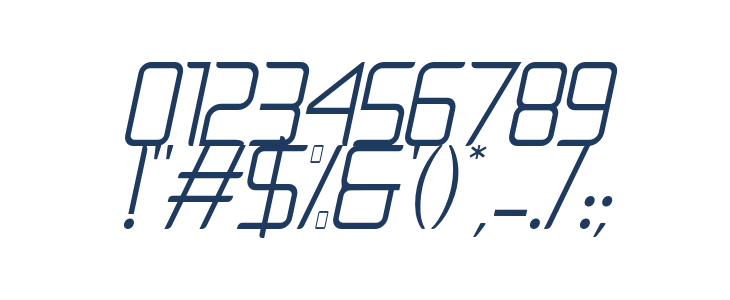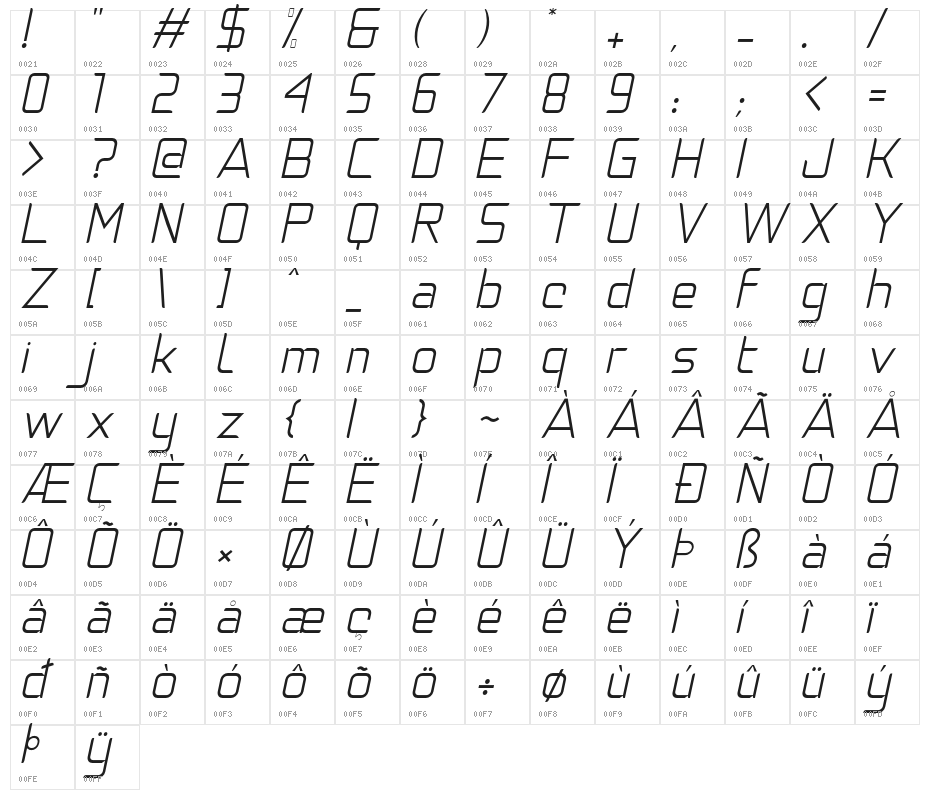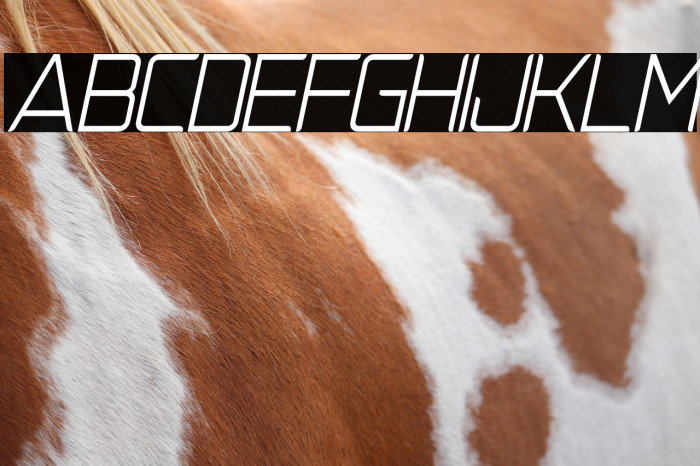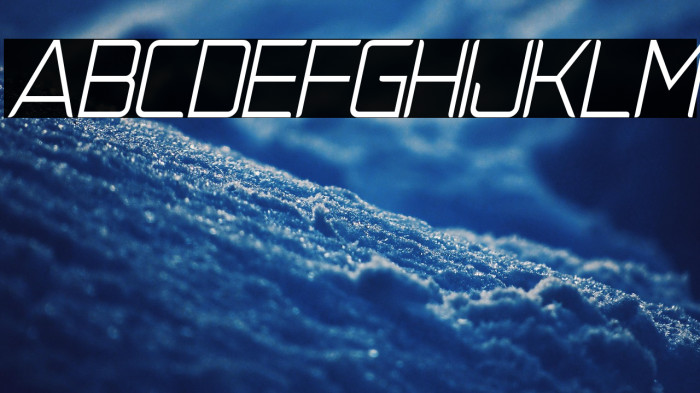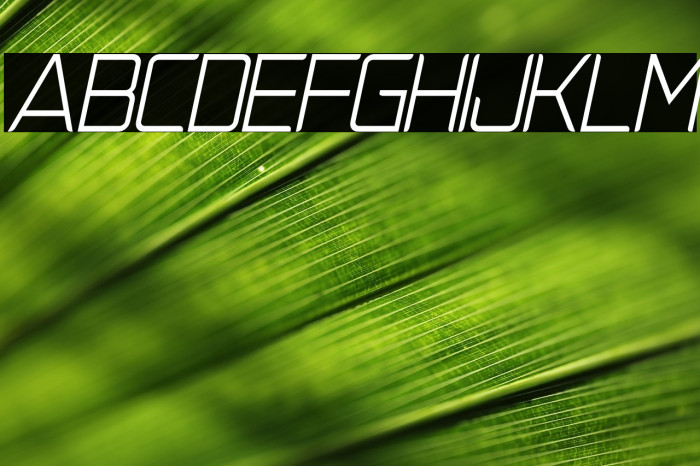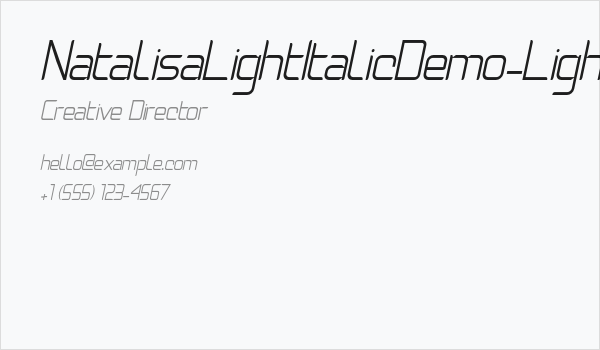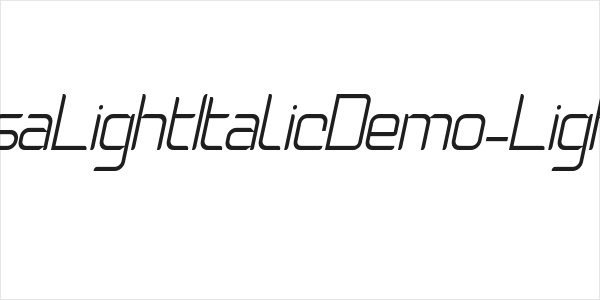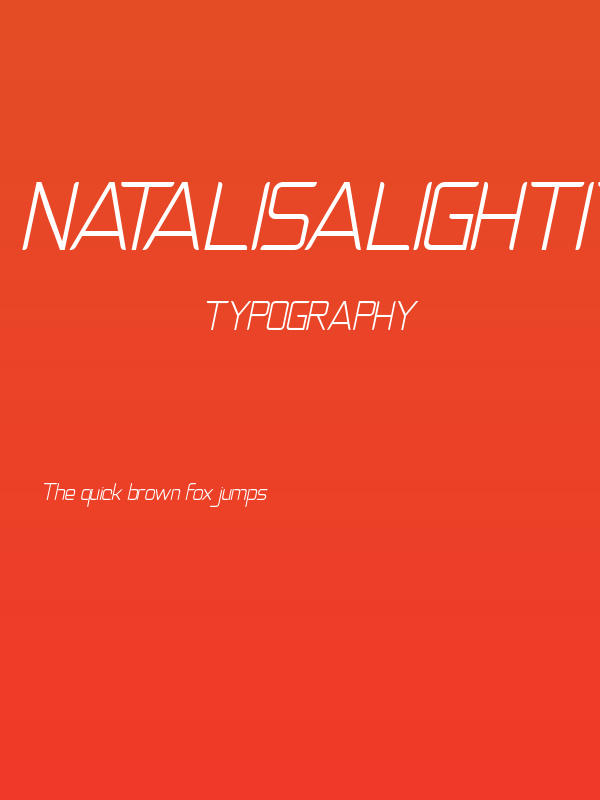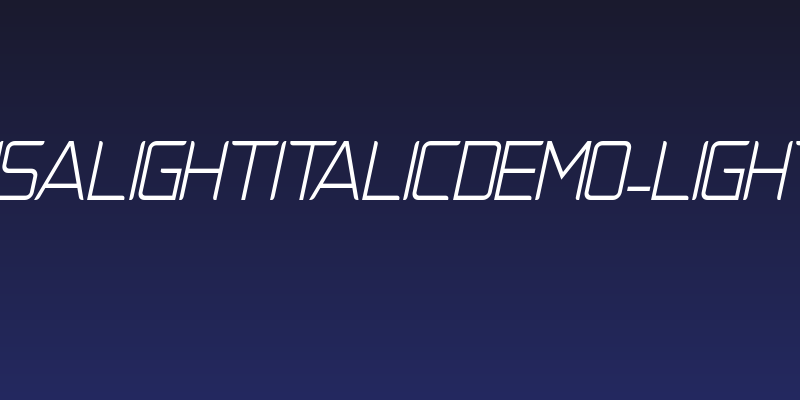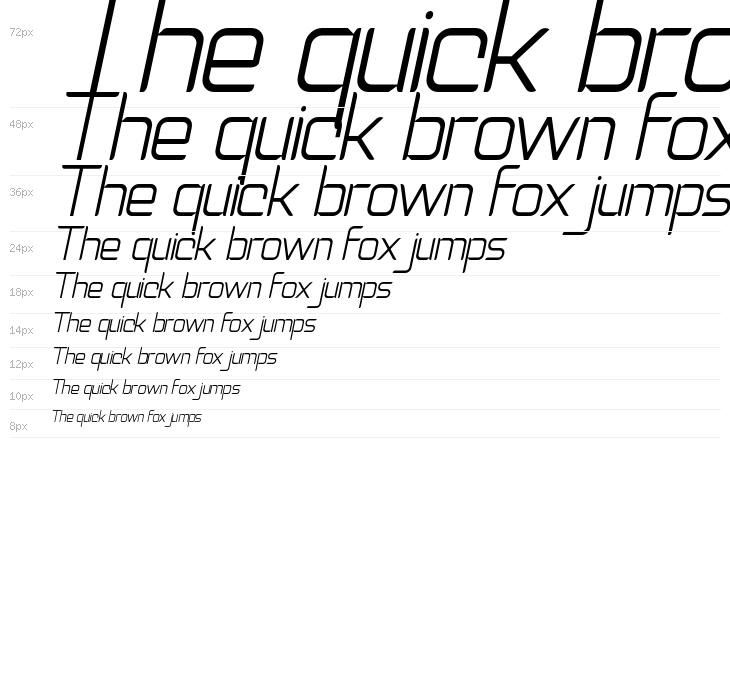
NatalisaLightItalicDemo-LightItalic Font
NatalisaLightItalicDemo-LightItalic Description
This font features a sleek and modern design with a light and italicized style. The characters are elongated and slightly condensed, giving it a futuristic and dynamic appearance. The strokes are consistent in weight, contributing to a clean and streamlined look. The uppercase and lowercase letters maintain a uniform height, enhancing readability. The numerals are distinct and align well with the overall aesthetic, while the special characters complement the font's modern style. This font is ideal for projects that require a contemporary and stylish touch.
| Proposed Projects | Ideal for branding, advertising, technology-related projects, and modern web design. |